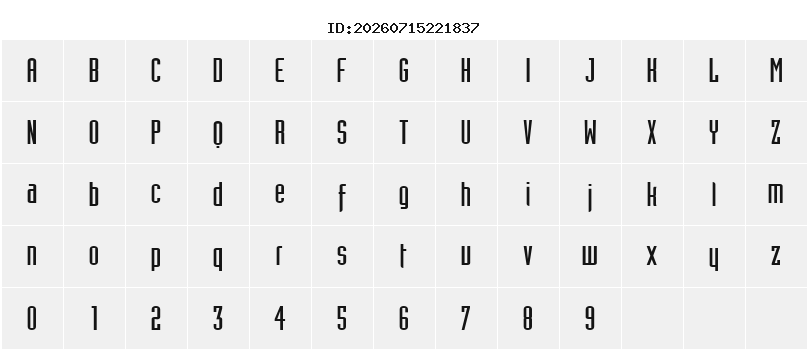
Assiduous Preview
• Font Name: Assiduous
• Full Font Name: Assiduous
About Assiduous.ttf
Assiduous.ttf is a modern, elegant sans-serif font designed for ultimate readability and visual harmony. Perfect for branding, headlines, web design, and print materials.